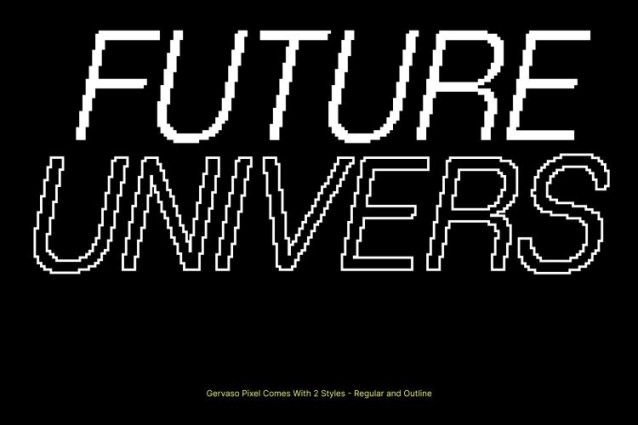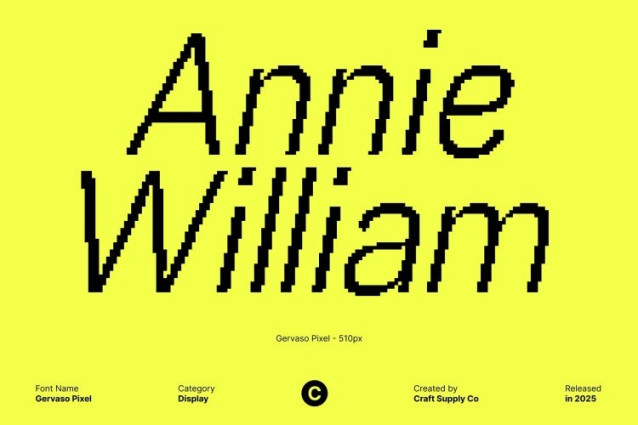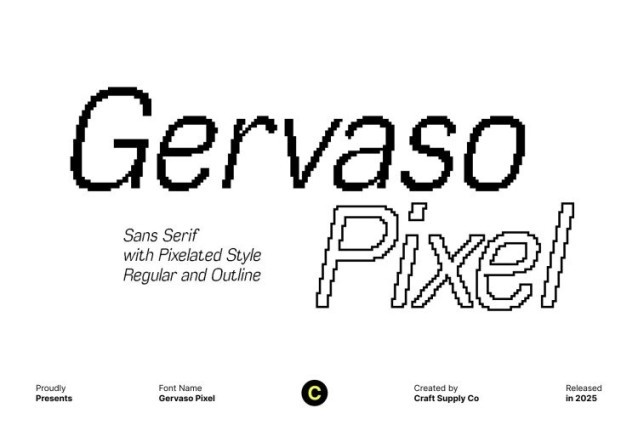
Gervaso Pixel Font
Gervaso Pixel Font This modern sans serif font features a clean, contemporary grotesk design that delivers a minimalist and stylish appearance. Its precise shapes and balanced structure create a professional tone, making it ideal for designers who value clarity, refinement, and modern visual aesthetics.
Pixel Texture Inspired by the 8-Bit Digital Era
The added pixel effect brings a nostalgic twist, resembling the iconic 8-bit graphics of classic games and old computer displays. This digital texture enhances the font with a unique retro-tech personality, blending modern design with vintage digital charm that feels both playful and distinctive.
Perfect for Retro Games, Interfaces, and Creative Displays
With its nostalgic pixel character, this font works beautifully in retro game designs, user interfaces (UI), nostalgia-themed websites, posters, t-shirts, infographics, and bold logo designs. It injects visual energy into projects that aim to highlight the classic era of early technology and digital innovation.
Stylish, Nostalgic, and Visually Captivating
By merging modern grotesk minimalism with pixel-inspired texture, this font creates a fresh yet retro identity. It’s the perfect choice for creatives who want a typeface that feels clean, stylish, and irresistibly nostalgic all while standing out across both digital and print media.